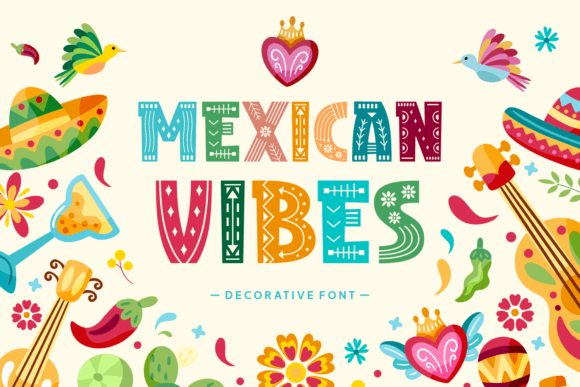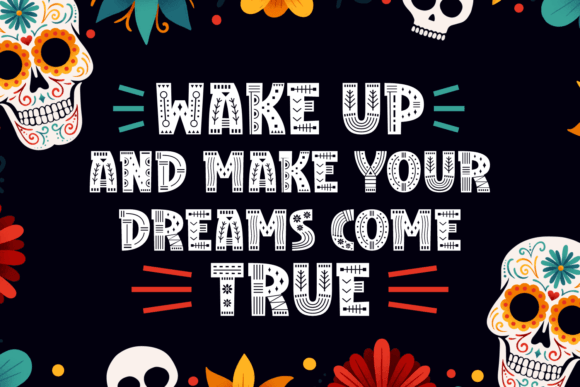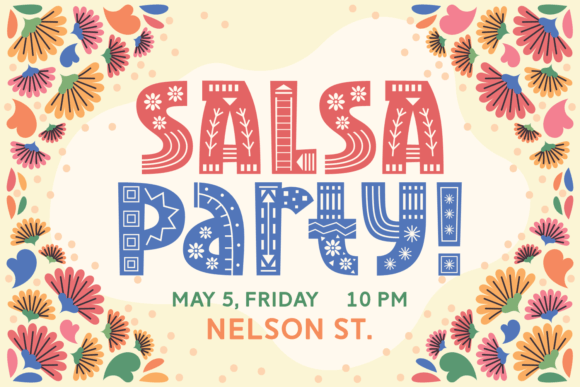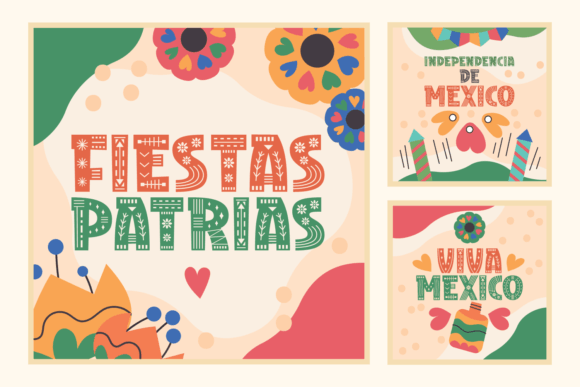
Mexican Vibes Font
About the Mexican Vibes Font
Explore the possibilities with Mexican Vibes Font, a font that offers both beauty and functionality. Mexican Vibes is an exquisite decorative font, carefully elaborated to become a true favorite. It has an outstanding writing technique that fits lots of design ideas. Fall in love with it and bring your projects to the moon and back!
Mexican Vibes is ideally suited for headlines, short text blocks on posters, and branding applications where a bold, festive feel is desired. Its decorative nature makes it less suitable for body text or UI elements requiring high readability. Long paragraphs set in this font would be difficult to read.
The font’s personality is exuberant and playful, reflecting a vibrant and celebratory mood. It works exceptionally well for projects related to food, travel, festivals, or any brand aiming for a spirited, authentically Mexican aesthetic.
Consider pairing Mexican Vibes with a clean sans-serif like Montserrat for contrast and improved readability in supporting text, or a classic serif like Playfair Display for a more sophisticated, vintage feel. A simple, geometric sans-serif could also provide a strong modern counterpoint.
Mexican Vibes Font Usage Examples
Mexican Vibes Font Example